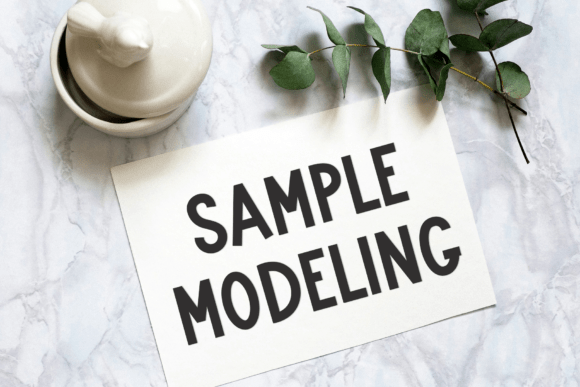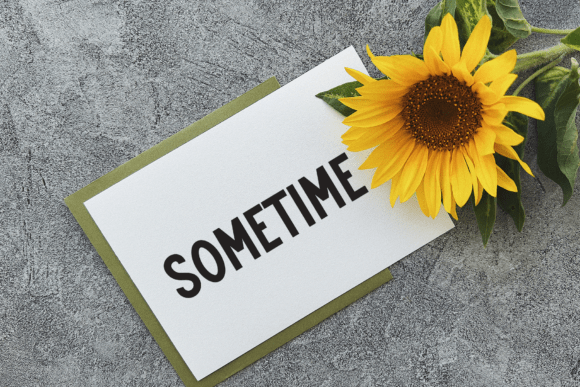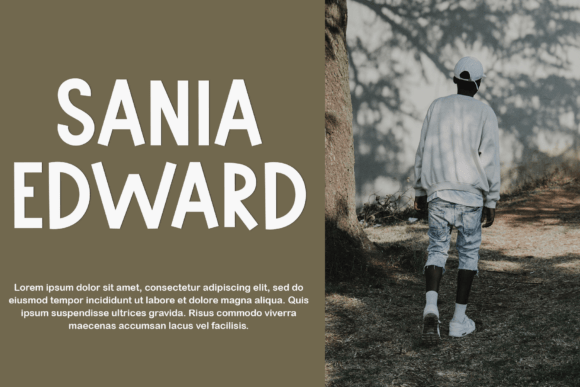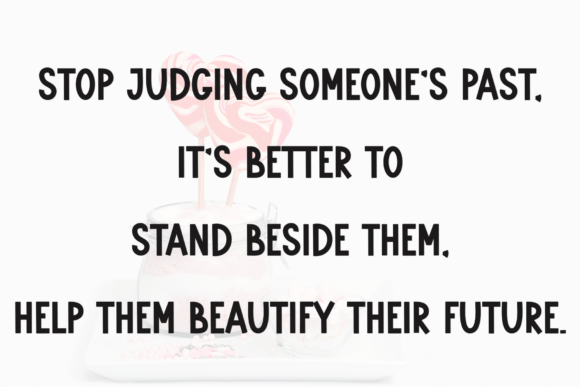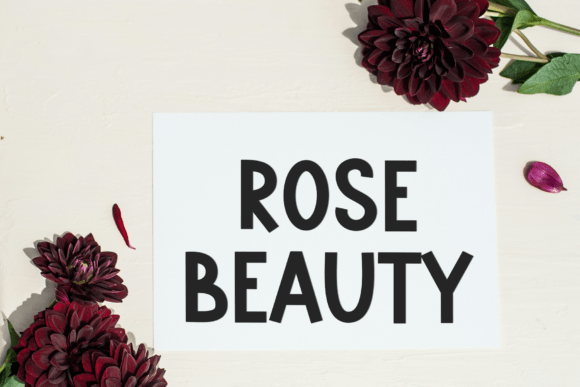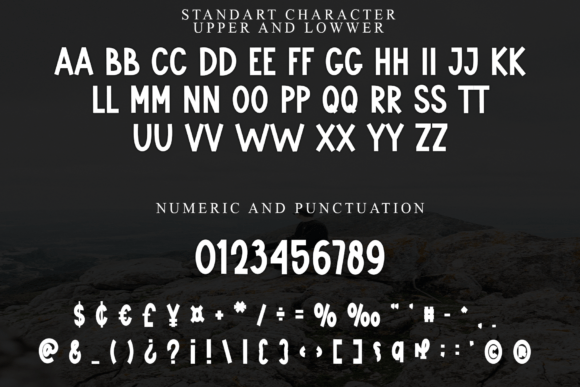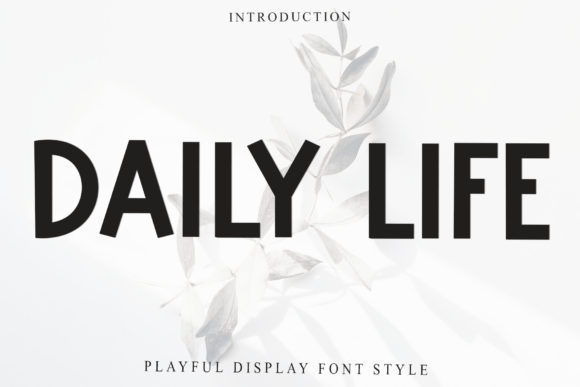
Introducing Daily Life Font: The Perfect Companion for Creative Projects
Are you tired of using the same old fonts for your personal projects, invitations, and social media graphics? Look no further than Daily Life Font, a casual and creative font that exudes warmth and friendliness. Its unique, hand-drawn aesthetic is sure to add a fun and unique touch to any design, making it perfect for designers and crafters alike.
The Characteristics of Daily Life Font
Daily Life Font is characterized by its round, playful strokes that create a relaxed and approachable feel. This font is designed to make your designs feel more personal and inviting, making it ideal for a wide range of applications, from personal projects to commercial designs. Whether you’re creating a social media graphic, an invitation, or a blog post, Daily Life Font is sure to bring a touch of warmth and personality to your design.
What Makes Daily Life Font So Special?
One of the things that sets Daily Life Font apart from other fonts is its charming, hand-drawn aesthetic. This font is designed to look like it was drawn by hand, with each letter and symbol carefully crafted to create a unique and playful feel. The result is a font that feels approachable, friendly, and fun, making it perfect for designs that need to connect with the viewer on a personal level.
Uses for Daily Life Font
So, what can you use Daily Life Font for? The possibilities are endless! Here are a few ideas to get you started:
• Personal projects: Use Daily Life Font to add a touch of personality to your personal projects, such as photo albums, scrapbooking, and journaling.
• Invitations: Daily Life Font is perfect for creating invitations for parties, weddings, and other special events.
• Social media graphics: Use Daily Life Font to create eye-catching social media graphics that will help you stand out from the crowd.
• Blogging: Add a touch of personality to your blog posts with Daily Life Font, making them more engaging and fun to read.
Why Choose Daily Life Font?
So, why should you choose Daily Life Font for your next design project? Here are just a few reasons:
• Unique and playful aesthetic: Daily Life Font has a unique and playful aesthetic that will add a touch of personality to any design.
• Easy to read: Despite its playful aesthetic, Daily Life Font is easy to read, making it perfect for body text and headlines.
In conclusion, Daily Life Font is a casual and creative font that is perfect for designers and crafters looking to add a touch of personality to their designs. With its unique, hand-drawn aesthetic and compatibility with a wide range of design applications, Daily Life Font is a versatile and convenient choice for almost any design project. So why not give it a try and see the difference it can make in your designs?